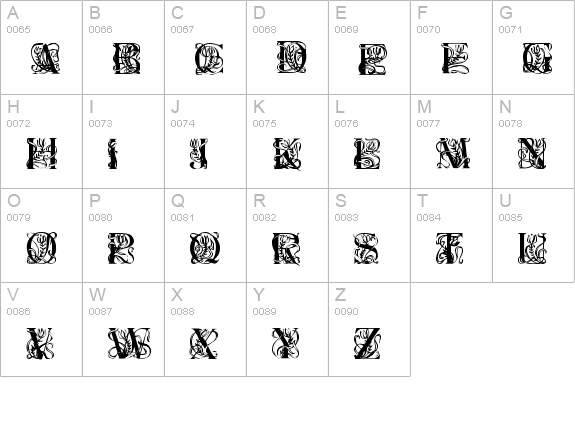
ElzevierCaps Font Details
ElzevierCaps font is a stunning display typeface that exudes elegance and sophistication. Its intricate details and ornate design make it perfect for adding a touch of class to any project. The elaborate serifs and distinctive letterforms of ElzevierCaps give it a timeless appeal that is sure to captivate any audience. What's even better is that ElzevierCaps is available for free download at FontsMarket.com. This means you can easily enhance your designs with this exquisite font without any cost. Whether you're working on invitations, posters, or branding materials, ElzevierCaps is a versatile choice that will elevate your work to new heights. Don't miss out on the opportunity to incorporate this beautiful font into your projects today!